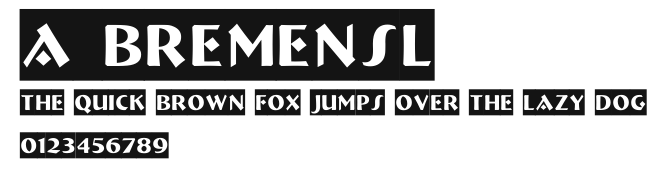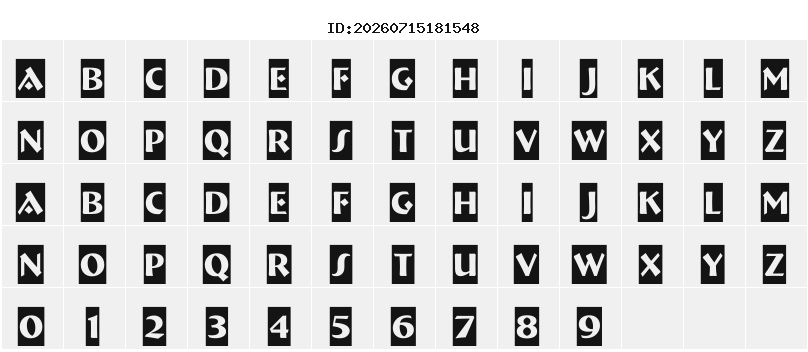
• Font Name: a_BremenSl
a_BremenSl.ttf is a modern, elegant sans-serif font designed for ultimate readability and visual harmony. Perfect for branding, headlines, web design, and print materials.